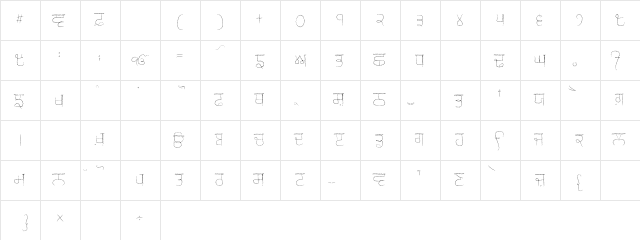
Gurmukhi Chalk script Regular
| Designer | Manpreet kour johar |
Design Context for Gurmukhi Chalk script Typeface
Gurmukhi Chalk script brings a calligraphic fluidity to the page — its connecting strokes and expressive curves give it an unmistakably human quality.